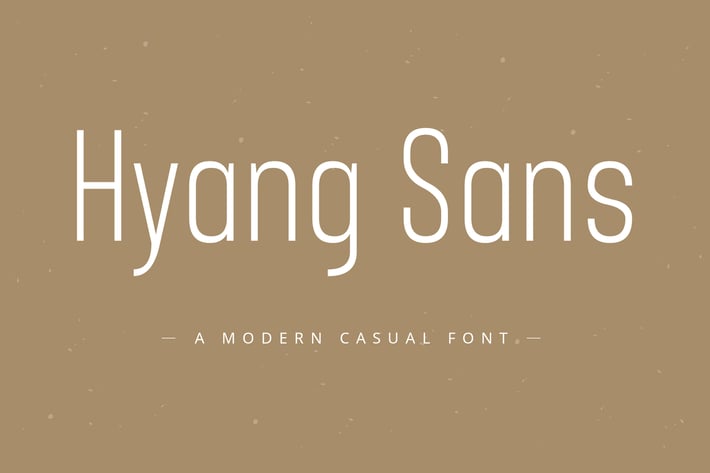
Hyang Modern Sans Serif Font
Bring clarity, sophistication, and versatility to your design projects with Hyang, a modern sans serif font that embodies casual elegance. Designed with a contemporary edge and minimalistic precision, Hyang offers a clean, balanced aesthetic that fits seamlessly into a wide range of creative applications. Its stylish simplicity makes it a perfect choice for brands, designers, and creators who value a timeless and professional look.
About the Font
Hyang is a modern sans serif typeface that blends functionality and style in a beautifully minimal form. The font’s smooth curves, uniform stroke widths, and geometric construction create a sense of harmony that feels both modern and approachable. Designed for readability and versatility, Hyang works equally well in digital and print environments, adapting effortlessly from large headlines to small body text.
Available in four distinct styles, Hyang gives you the flexibility to create balanced typography systems. Each style has been carefully developed to maintain consistent visual weight and clarity, making it easy to mix and match across design layouts while maintaining a cohesive tone.
Font Variants
+ Hyang Light: A refined and airy style ideal for minimal designs, lifestyle branding, and subtle typography work. It offers elegance through simplicity.
+ Hyang Regular: The most versatile weight, perfect for everyday use. Its clean lines make it ideal for corporate design, web interfaces, and editorial layouts.
+ Hyang Demi Bold: A slightly stronger version for designs that need a confident presence without overpowering the visuals. Great for subheadings or standout labels.
+ Hyang Bold: A statement-making weight with strong character. Perfect for titles, posters, and impactful brand materials that require visibility and emphasis.
This combination of weights makes Hyang a practical and complete solution for any designer looking to build strong typographic hierarchies while keeping a consistent and stylish appearance.
Suitable Uses
Hyang’s modern and casual appeal makes it an excellent choice for various design purposes, from creative to corporate. Its simplicity allows it to blend beautifully with other design elements without losing its visual charm. Here are just a few ways you can use Hyang effectively:
+ Branding & Logo Design: Build a professional and clean brand identity with crisp letterforms.
+ Editorial & Magazine Layouts: Perfect for headings, subheadings, and paragraphs that need legibility and elegance.
+ Web & App Interfaces: A reliable and modern font choice that ensures clarity across all devices.
+ Packaging Design: Great for minimalist labels, cosmetic brands, and lifestyle products.
+ Social Media & Marketing Materials: Create sleek, contemporary visuals that communicate your message clearly.
+ Presentations & Corporate Collateral – Maintain readability and style throughout your business materials.
Why Choose Hyang?
Hyang captures the essence of modern typography: minimal, functional, and beautiful. It’s crafted with attention to spacing, balance, and proportion, ensuring a harmonious visual flow across all weights. The font’s subtle sophistication allows it to adapt easily to a wide range of styles, from editorial fashion layouts to tech-inspired branding.
With full uppercase and lowercase letters, punctuation, and numerals, Hyang is not only visually appealing but also highly practical. Its range of weights provides designers with creative freedom to maintain consistent branding and hierarchy across various mediums.
Whether you’re designing for luxury, lifestyle, or technology, Hyang delivers the versatility and refinement you need to make your project shine.
Main Features:**
+ 4 Font Styles: Light, Regular, Demi Bold, and Bold
+ Uppercase & Lowercase Letters
+ Numbering and Punctuation